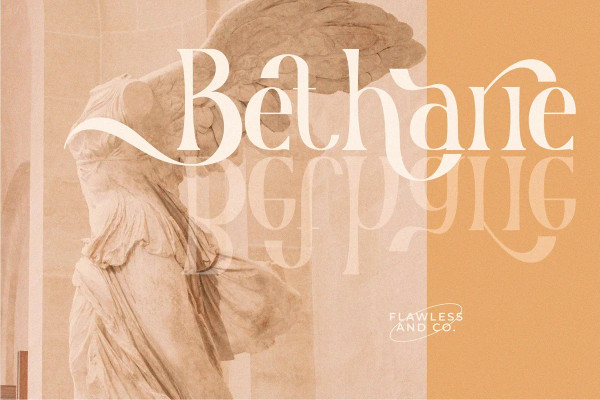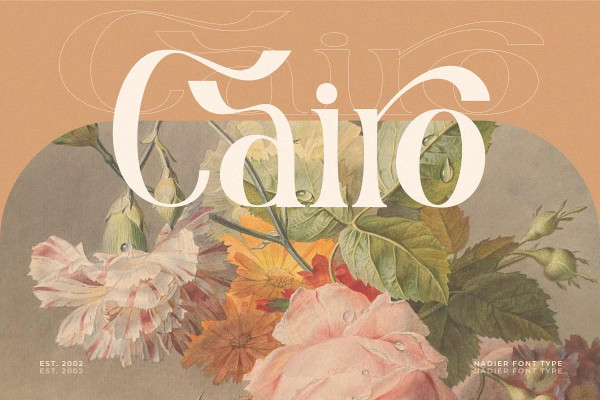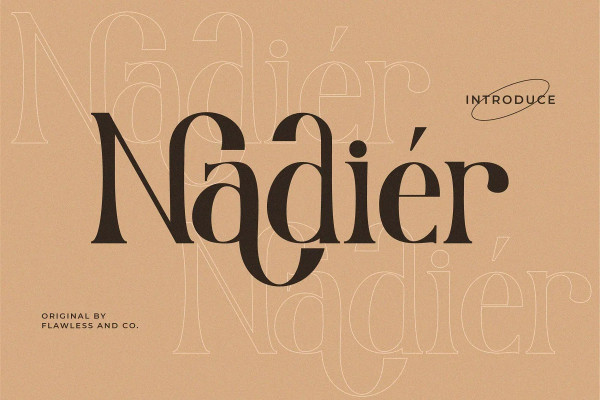
NADIER TYPEFACE
Nadier Typeface – Classic Retro Serif Font, our latest creation, modern serif with various alternates and ligatures, multilingual support, an updated blend of bohemian style, suitable for branding, business, logos, magazines, and others